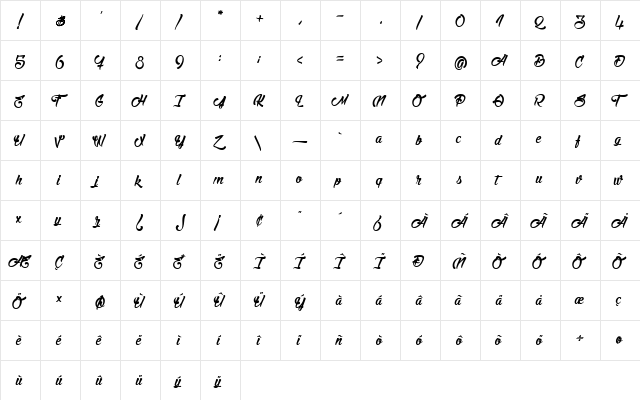
Stink on the Death Italic
Design Context for Stink on the Death Typeface
Stink on the Death leans into the macabre with letterforms designed to disturb and intrigue in equal measure. The dynamic lean of this cut emphasises speed and emphasis in any layout.
Ideal for Halloween projects, horror film titles, haunted house signage, and dark editorial design.
Font Pairing: Pair with a clean neutral sans-serif for body copy to let Stink on the Death's character lead without overwhelming the composition.
Pro Tip: Stink on the Death works best as a headline or focal element. Pair it against plain, neutral body text to amplify the contrast.